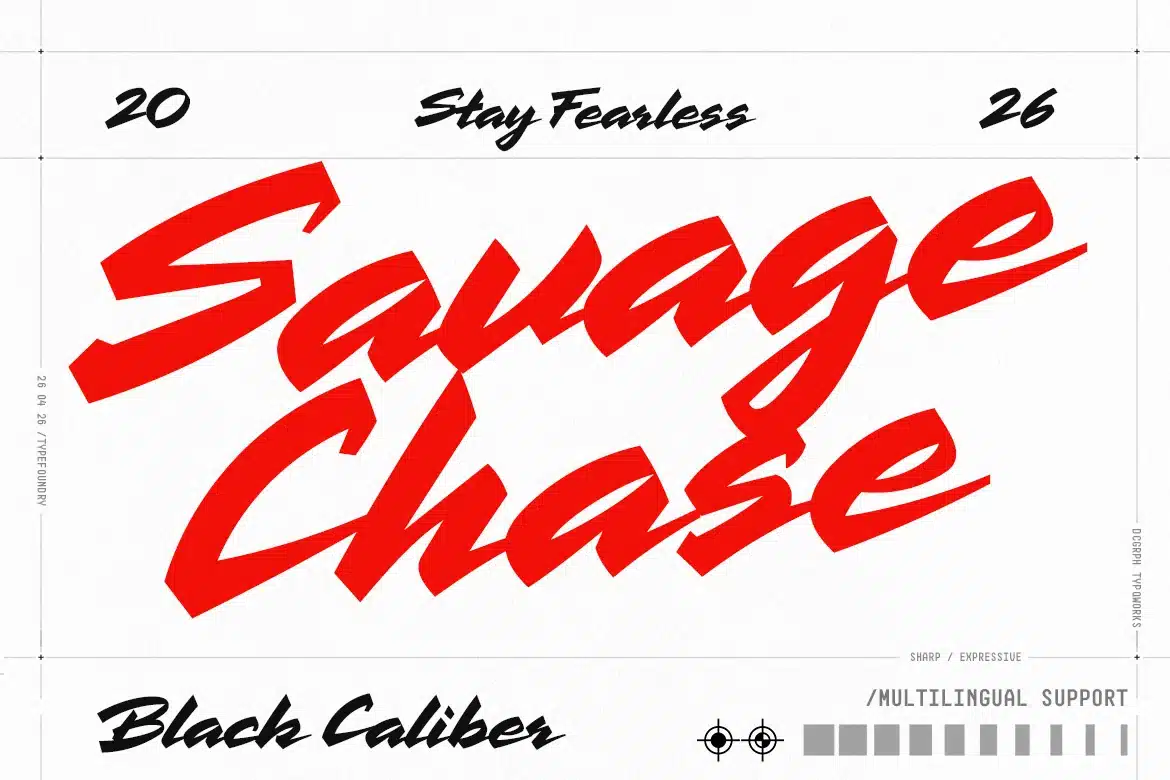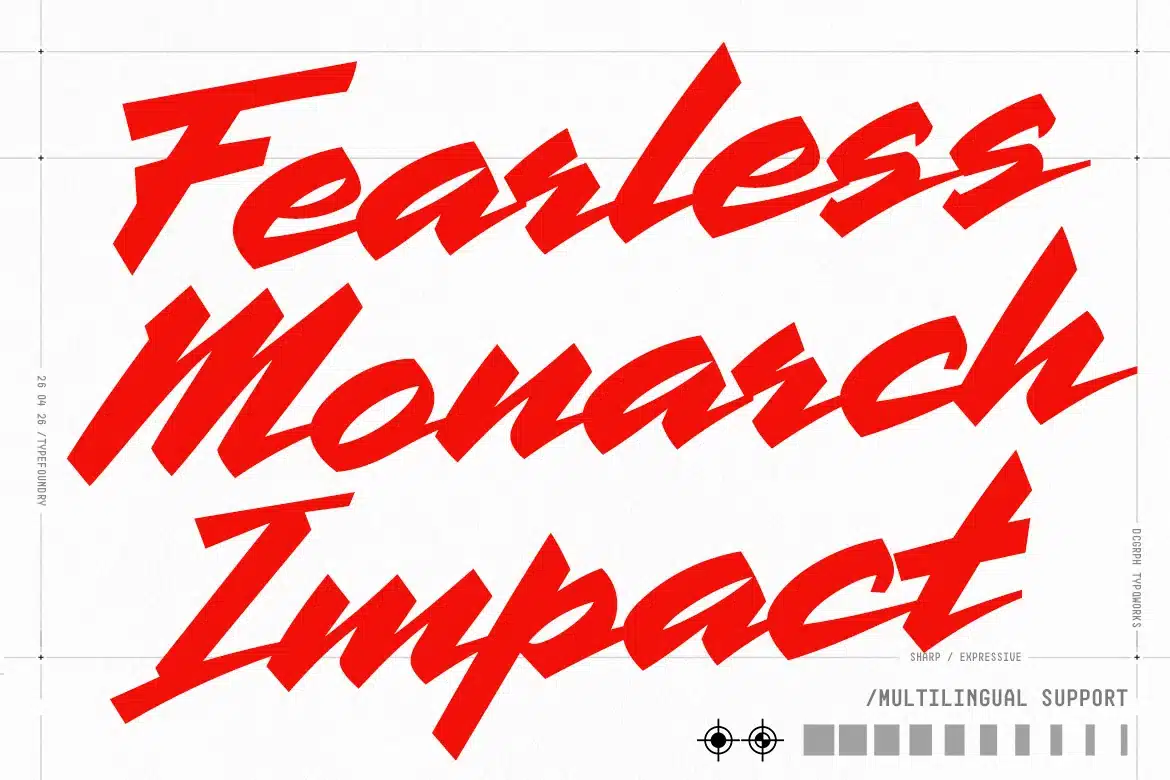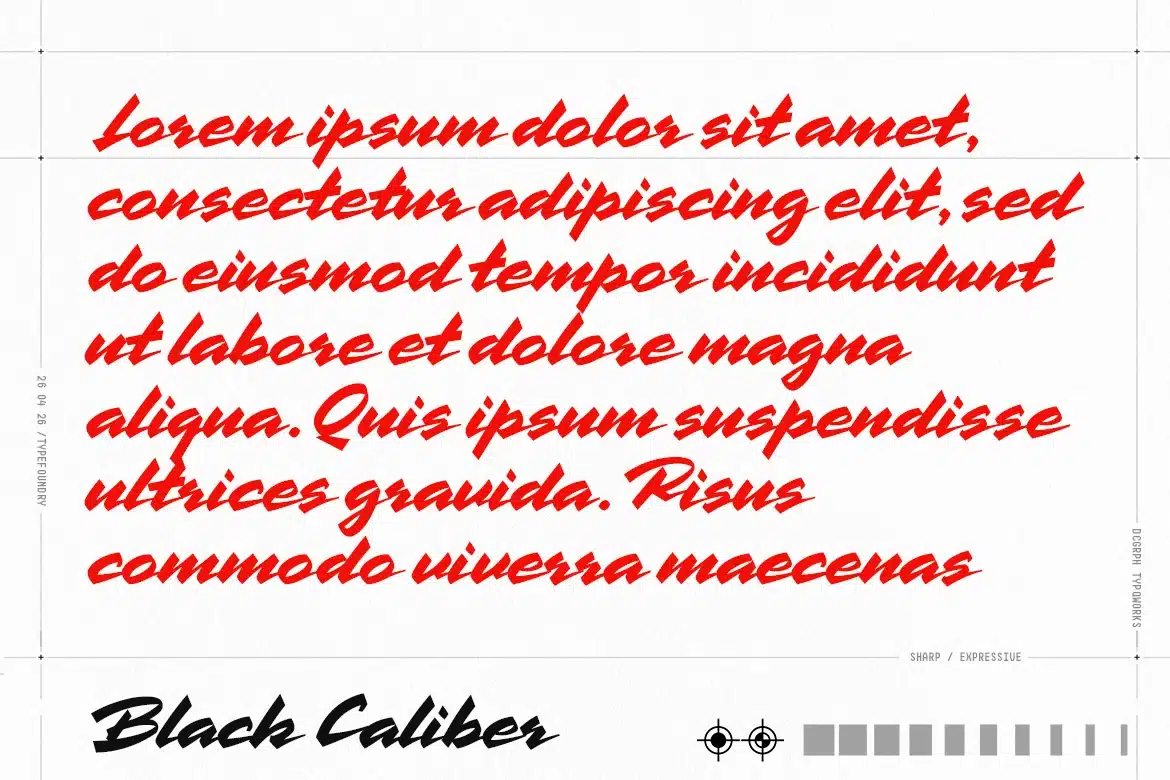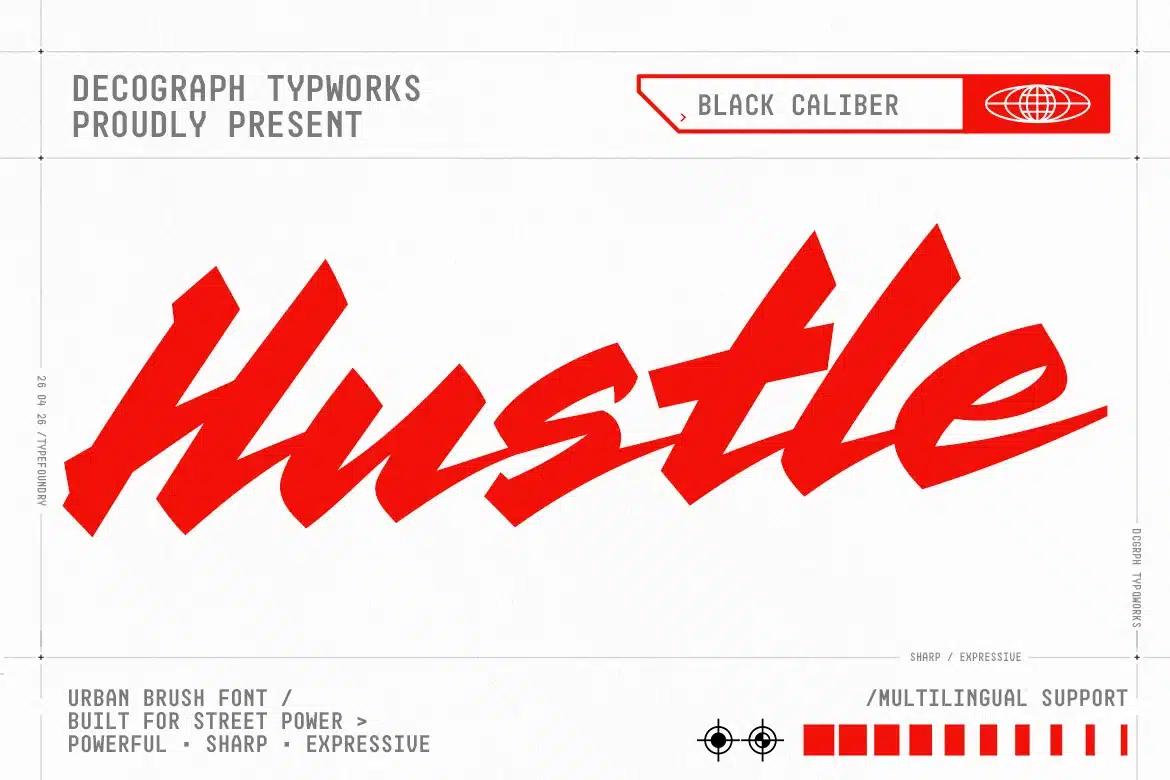
Black Caliber – Bold Urban Brush Script Font
Black Caliber is a bold brush script typeface crafted with aggressive strokes, sharp terminals, and dynamic handwritten movement. Its energetic letterforms deliver a strong urban attitude while maintaining smooth rhythm and stylish flow, making it highly impactful for modern display work.
Best Used For:
Sports Graphics
Poster Design
YouTube Thumbnails
Packaging Design
Social Media Content
Logo Design
Album Covers
Font Features:
Uppercase & Lowercase Characters
Stylistic Brush Letterforms
Smooth Ligature Flow